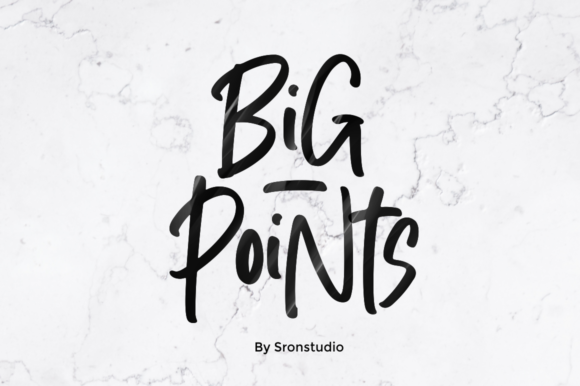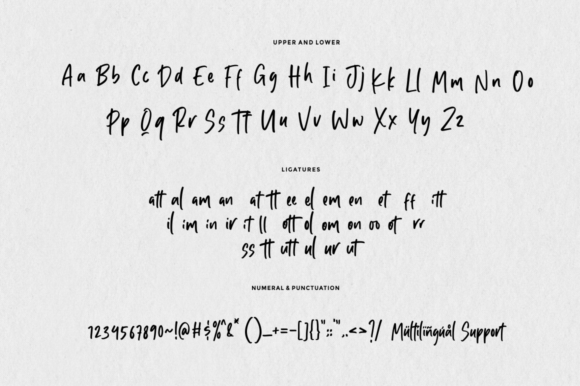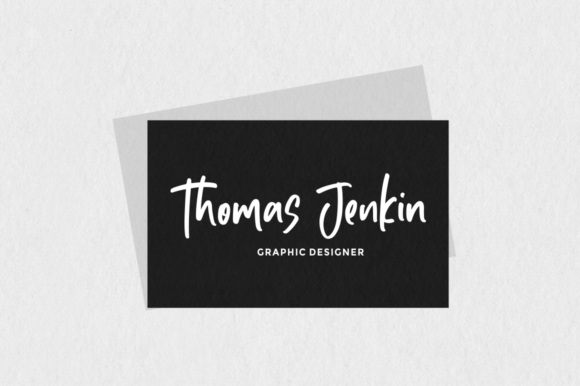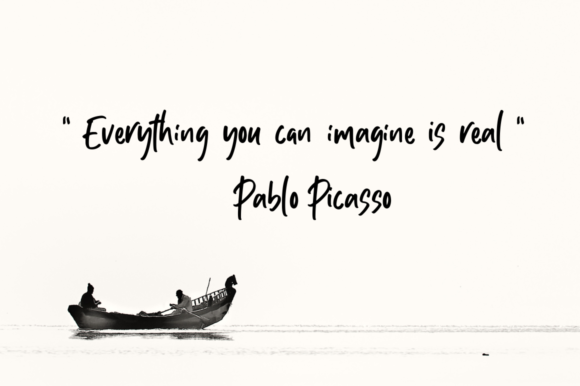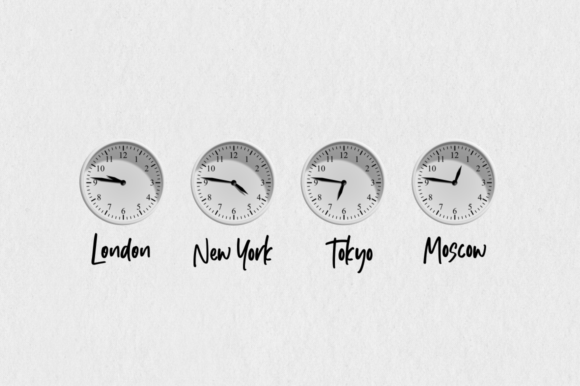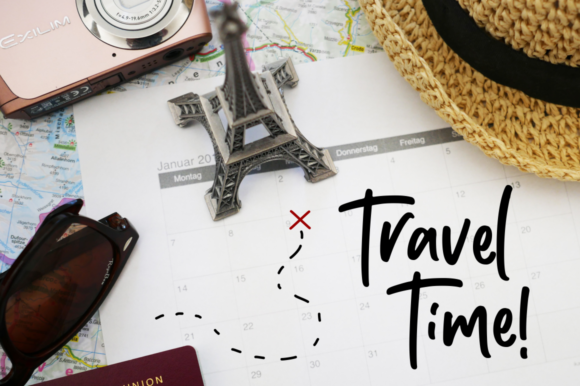
Big Points Font
About Big Points Font
Big Points is a fun and quirky handwritten font. Every letter has a unique and beautiful touch, which will make your design stand out!